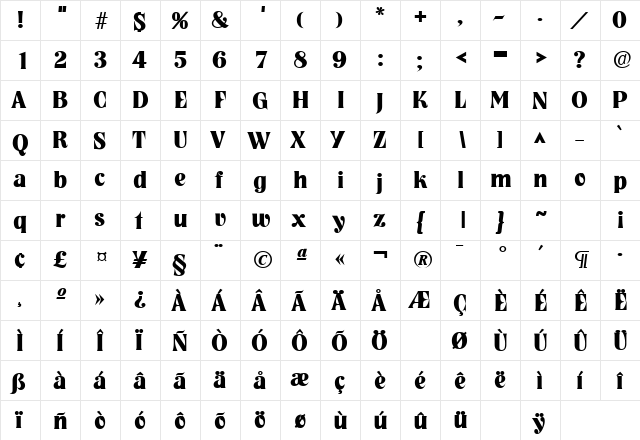
NashvilleLH Bold Font Preview
NashvilleLH Bold
Design Context for NashvilleLH Typeface
NashvilleLH is a composed and adaptable typeface that performs quietly and consistently across a wide range of design contexts. The heavy weight commands attention and anchors typographic hierarchies.